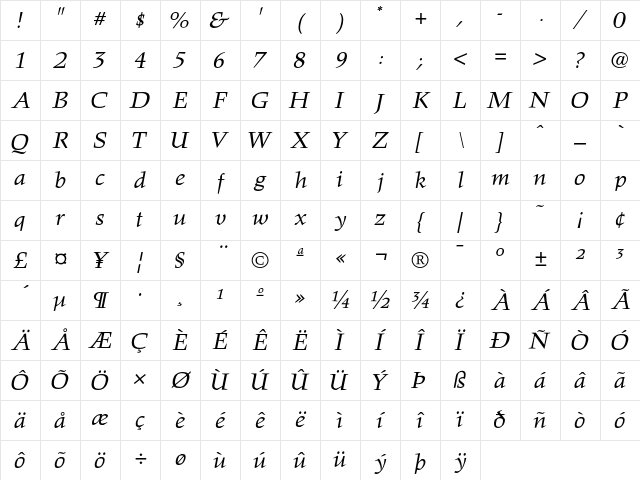
Hawkhurst LT Std Regular Italic
Designer: Richard Yeend
Design Context for Hawkhurst LT Std Regular
Hawkhurst LT Std Regular is a composed and adaptable typeface that performs quietly and consistently across a wide range of design contexts. The slanted form adds forward momentum and visual energy. Its slender proportions lend an understated elegance to any composition.
Pro Tip: Use Hawkhurst LT Std Regular for emphasis, pull quotes, and subheadings where its slanted energy can add rhythm to the layout.